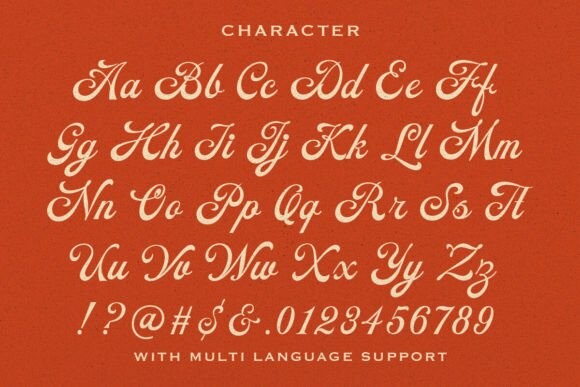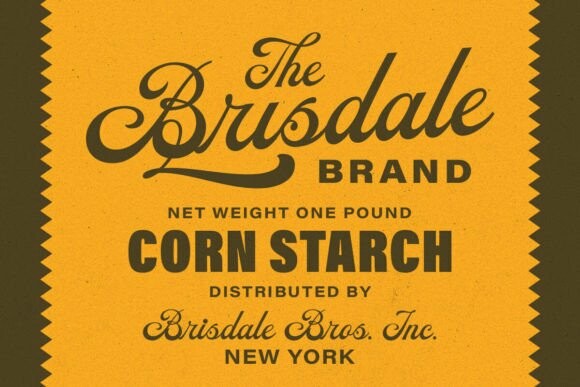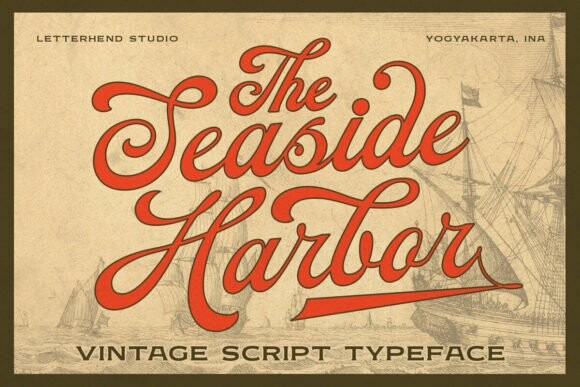
Seaside Harbor Font
Designer: letterhend
Seaside Harbor Font, a vintage script font. This typeface has a nostalgic feel because of its style and is masterfully designed to become a true favorite, this font has the potential to bring each of your creative ideas to the highest level!